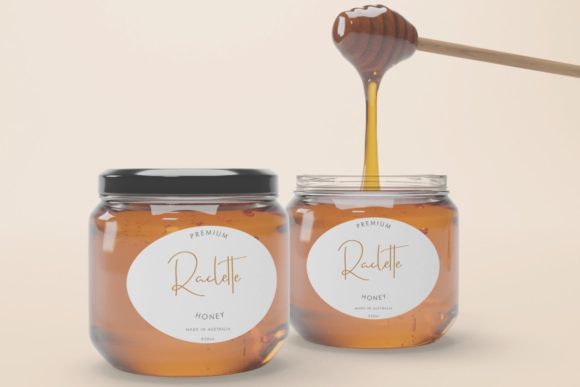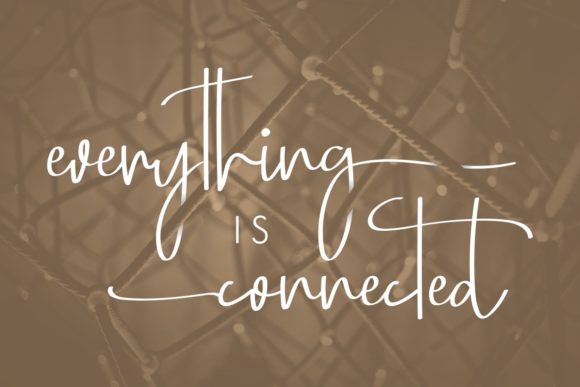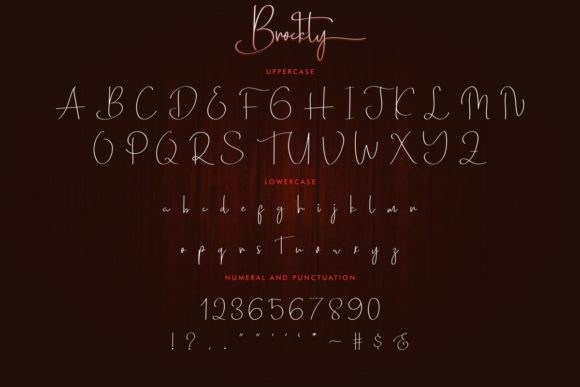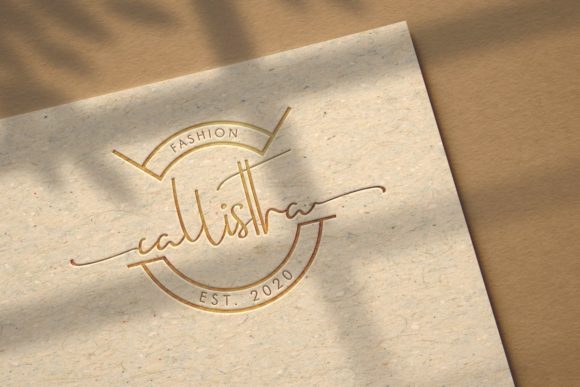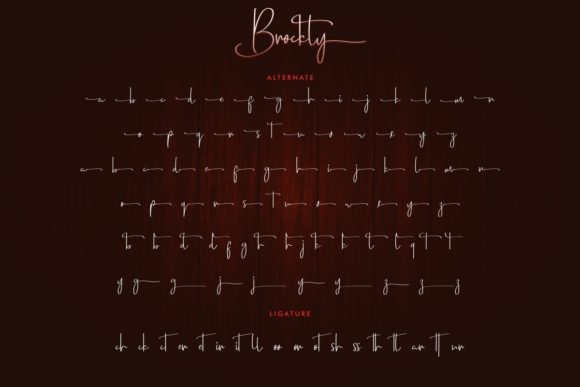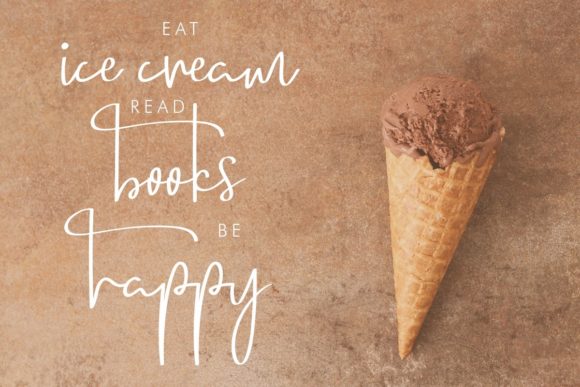
Introduction to Brockly Font
Brockly is a delicate script font.
Key Features of Brockly Font
Why Choose Brockly Font?
Brockly Font offers exceptional quality and versatility, making it a valuable addition to your design toolkit. Whether you’re creating for personal projects or commercial use, Brockly Font delivers professional results.